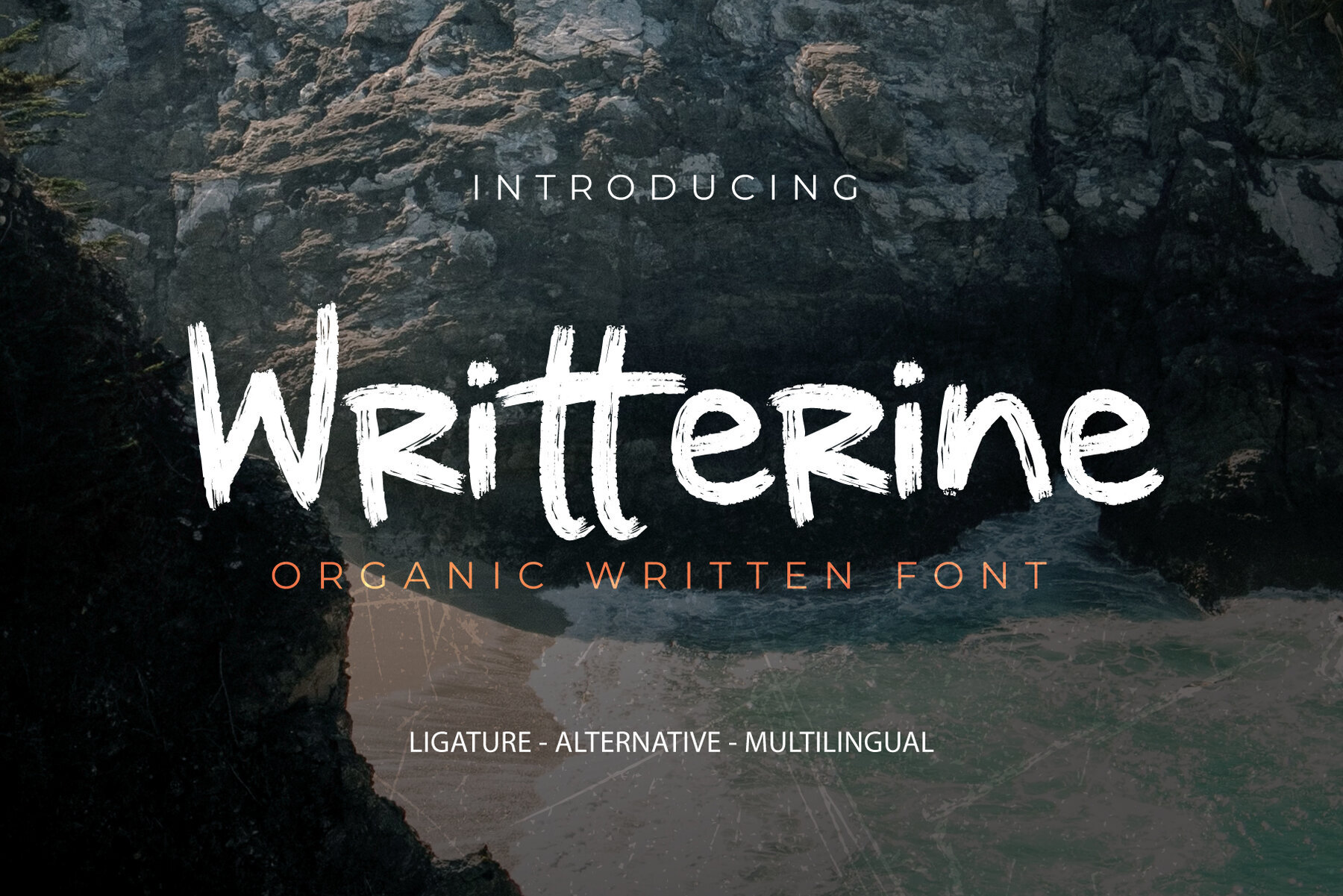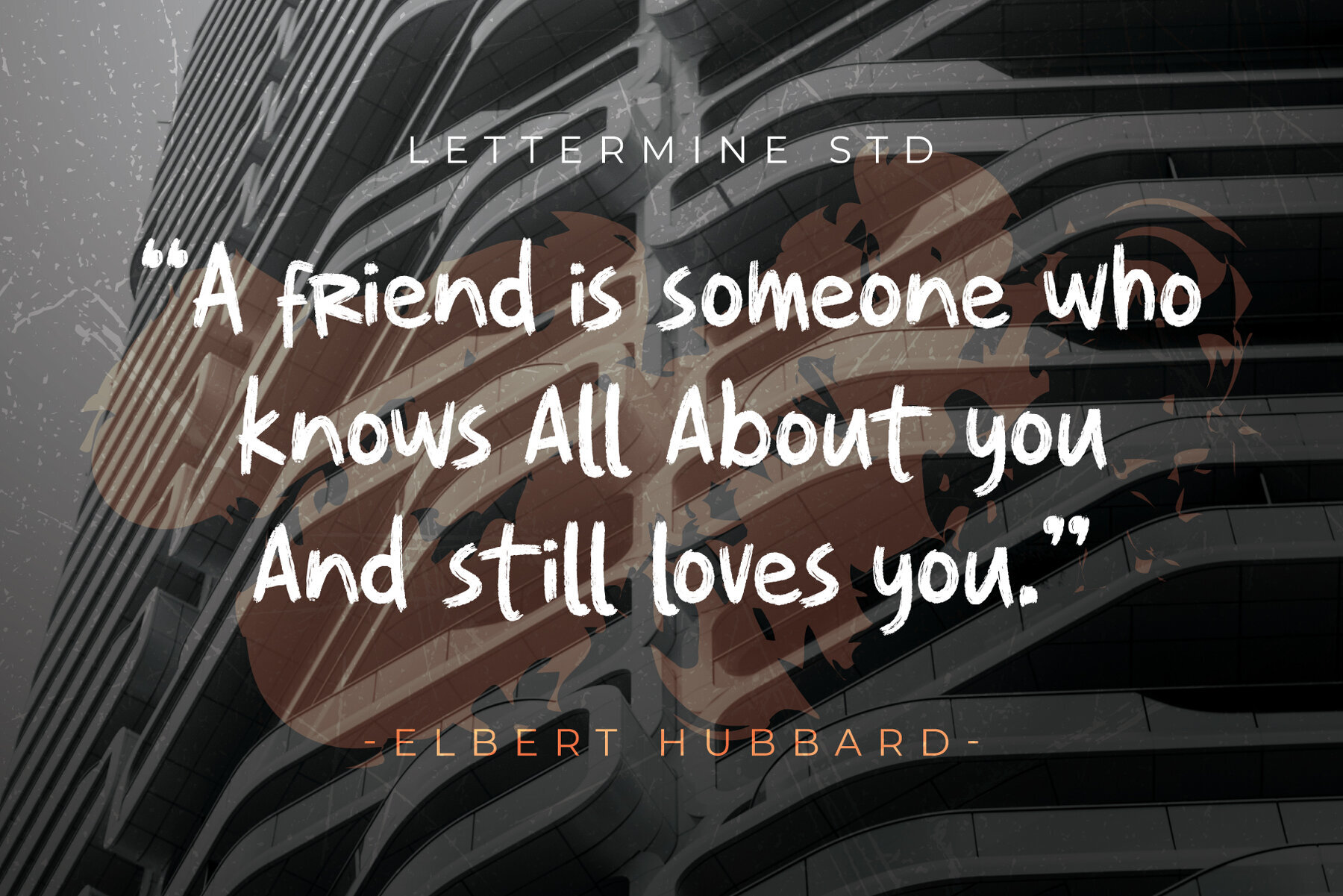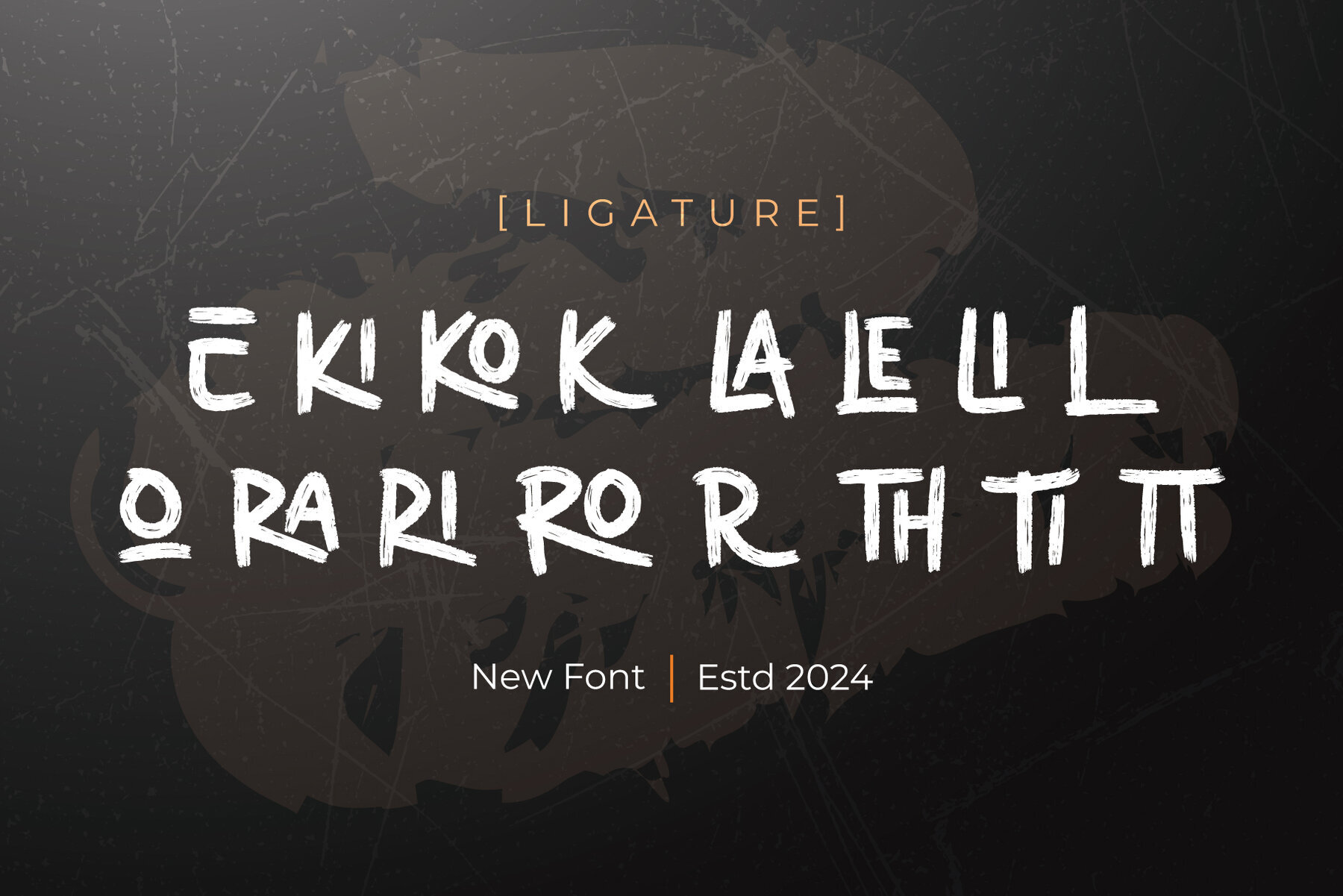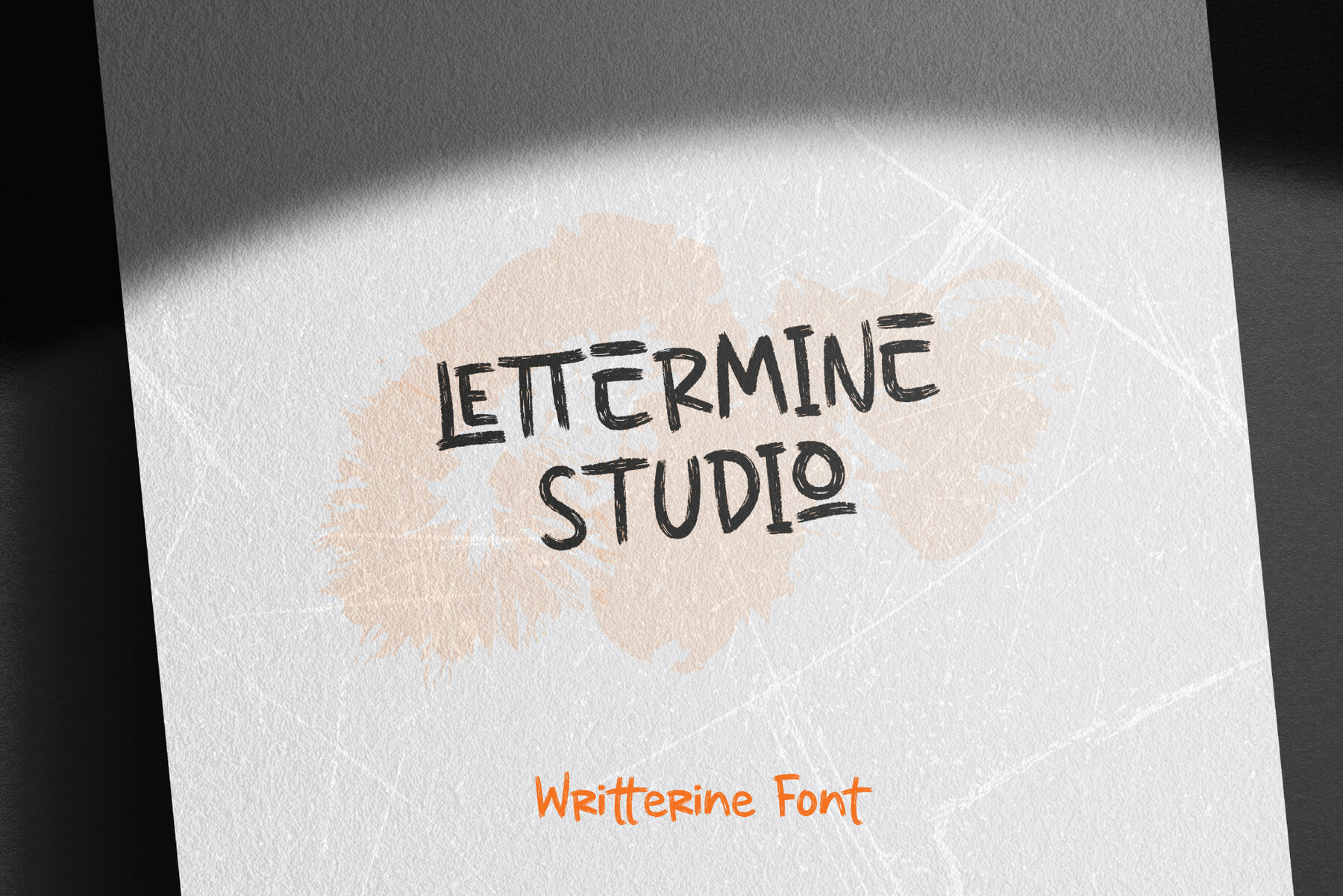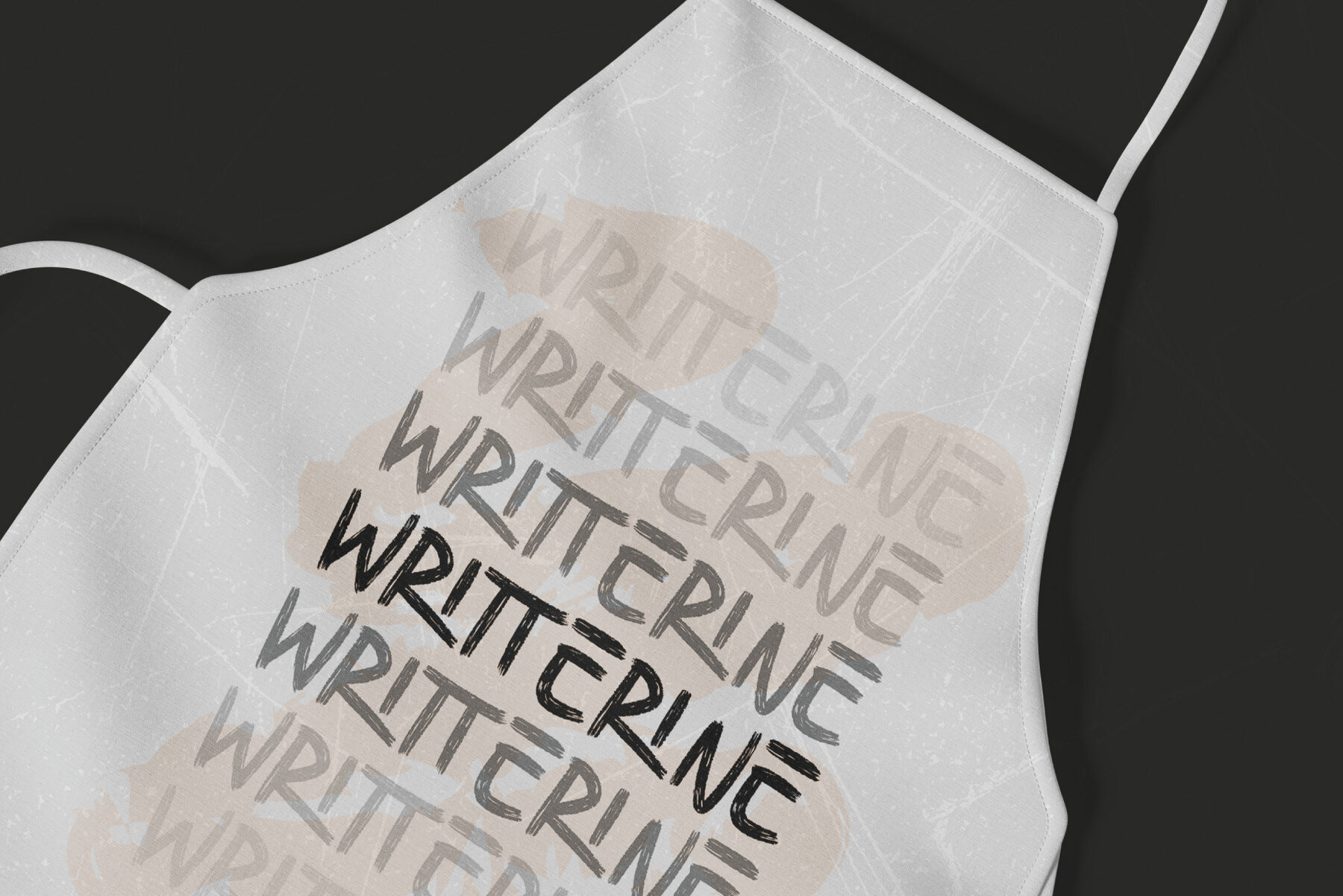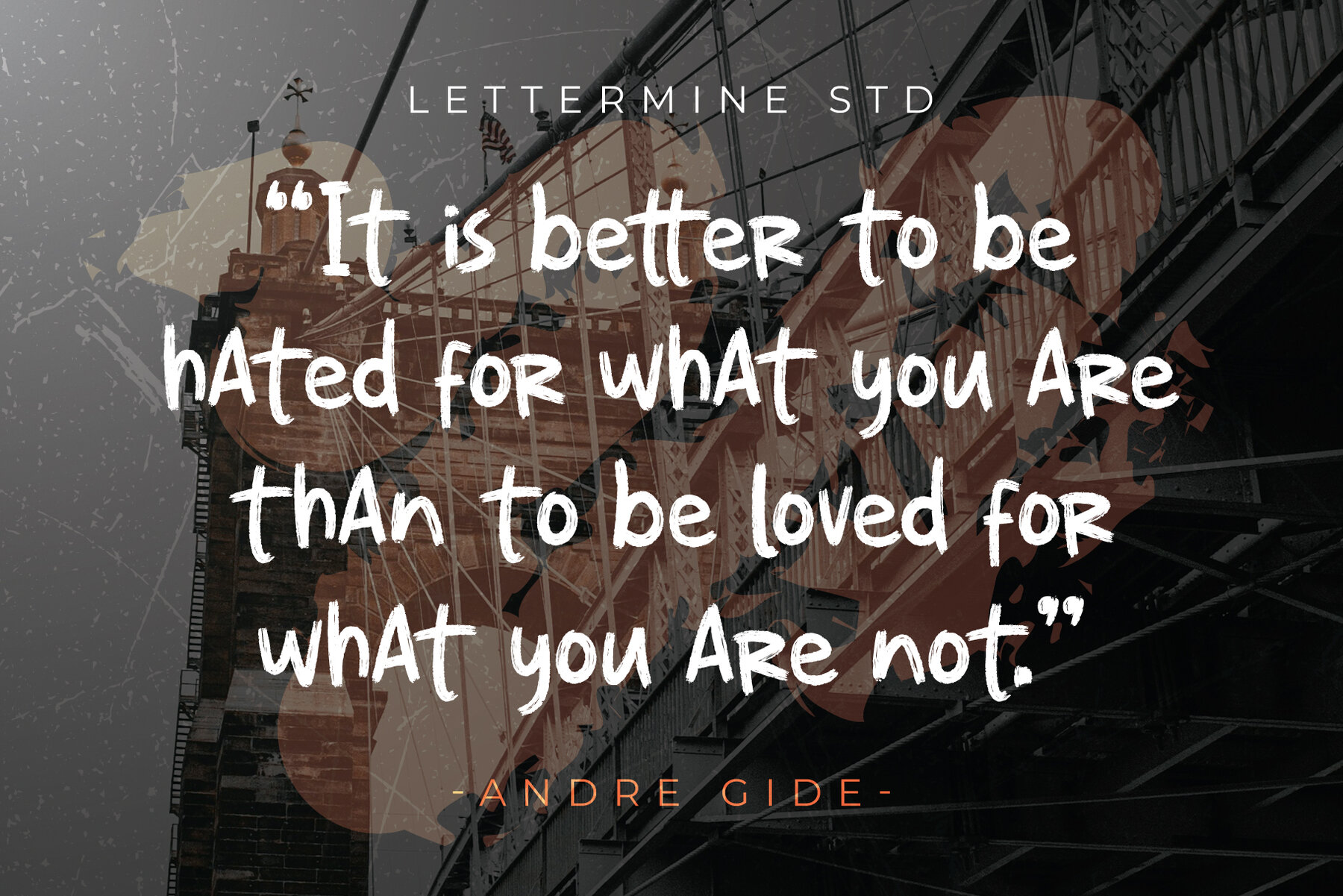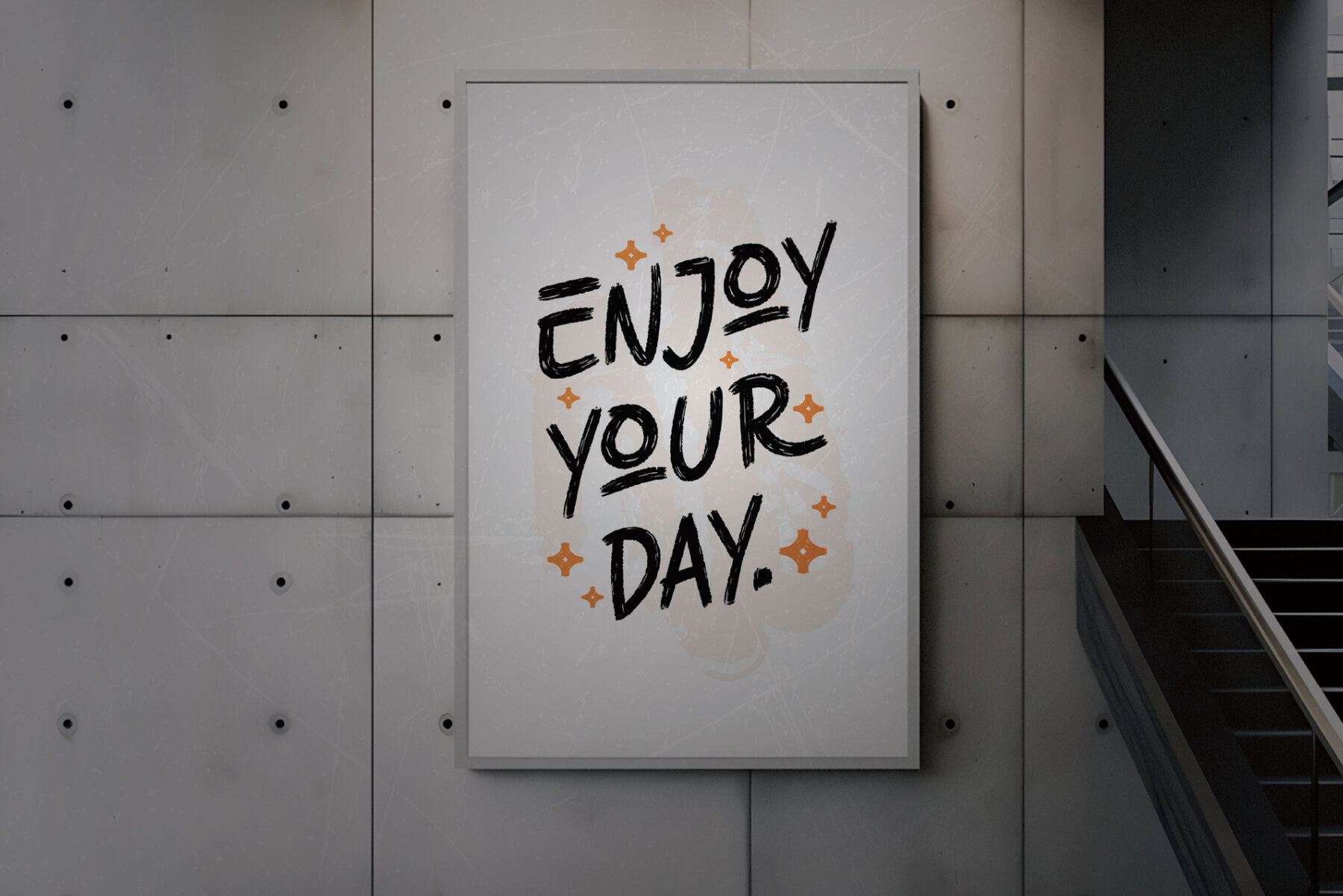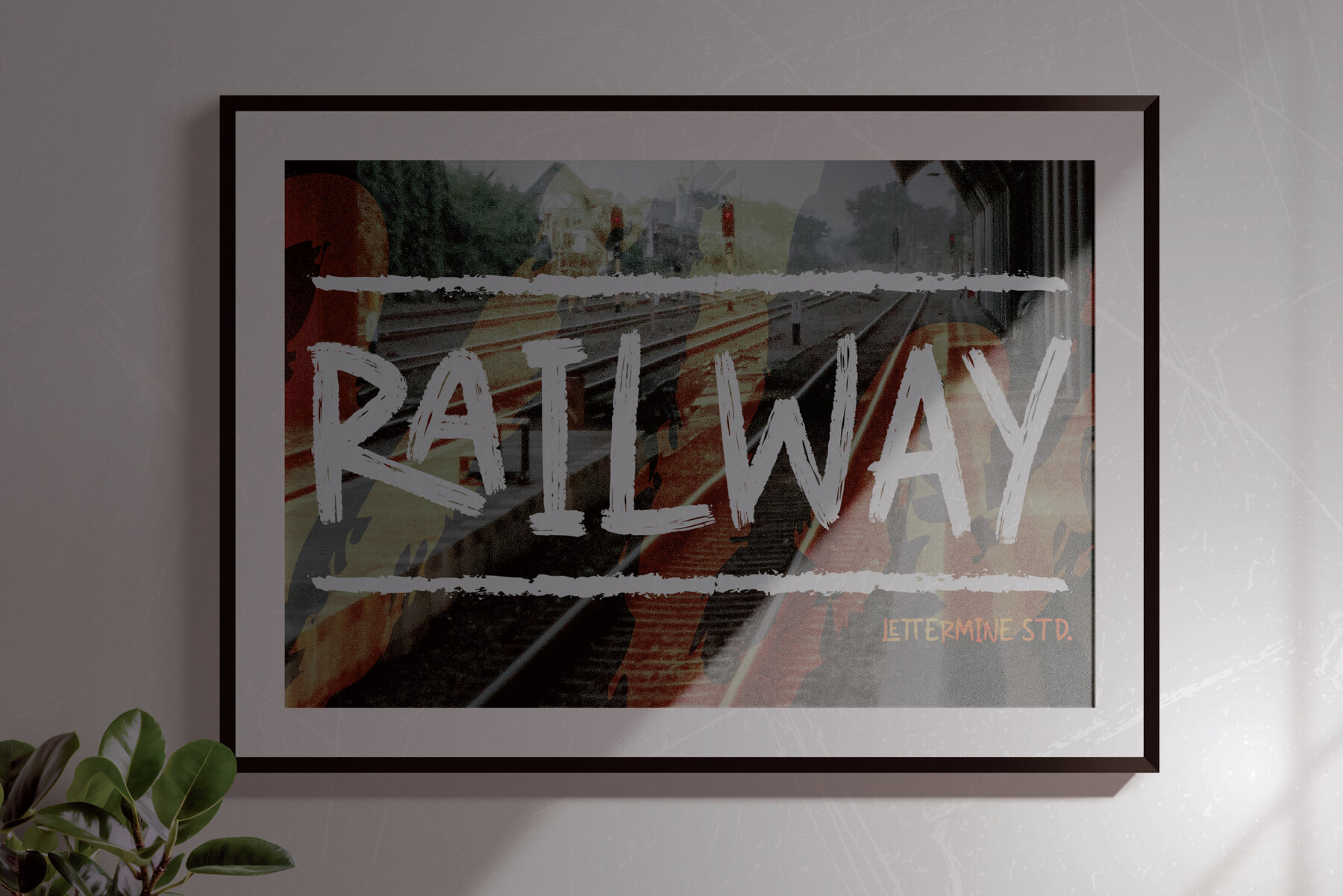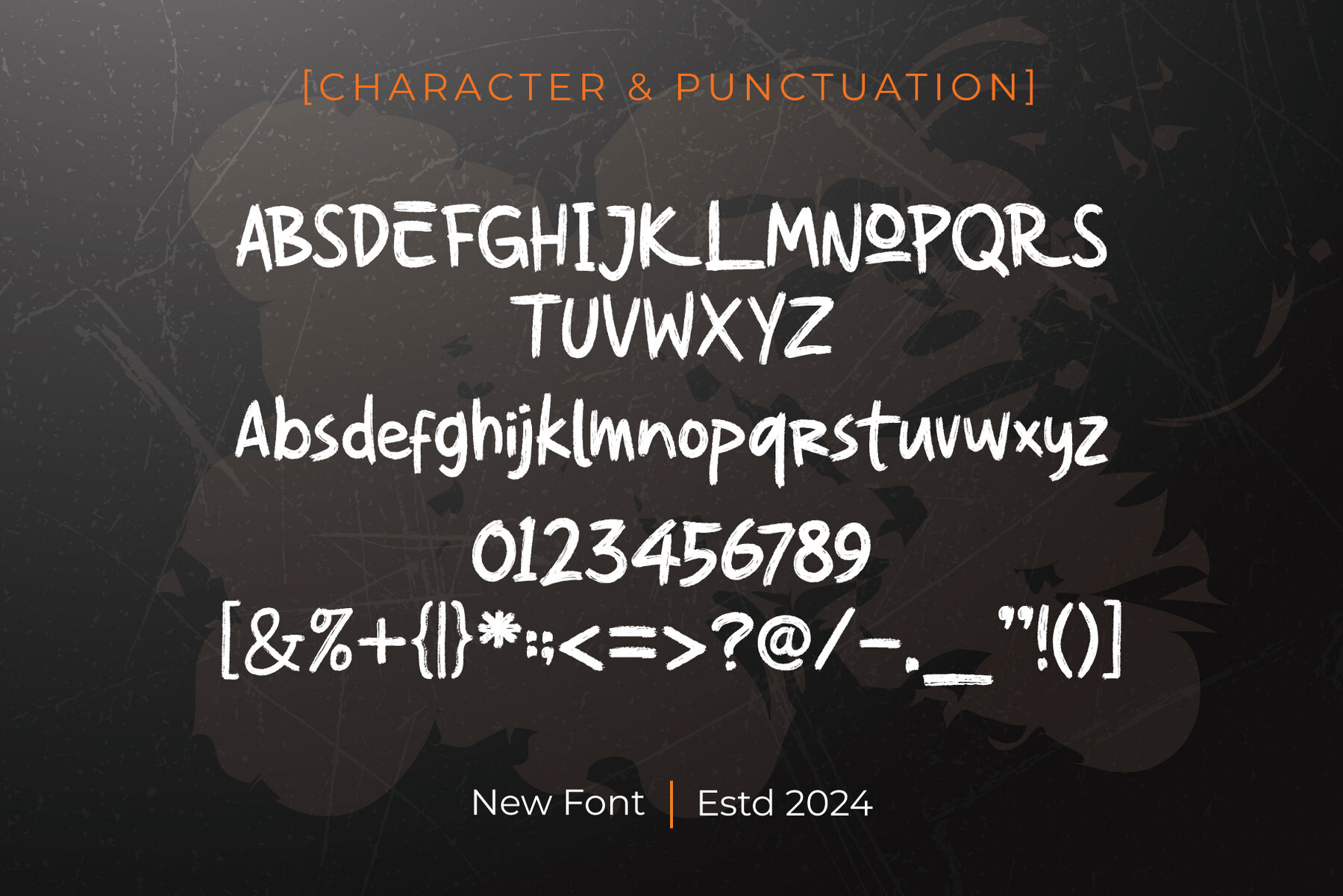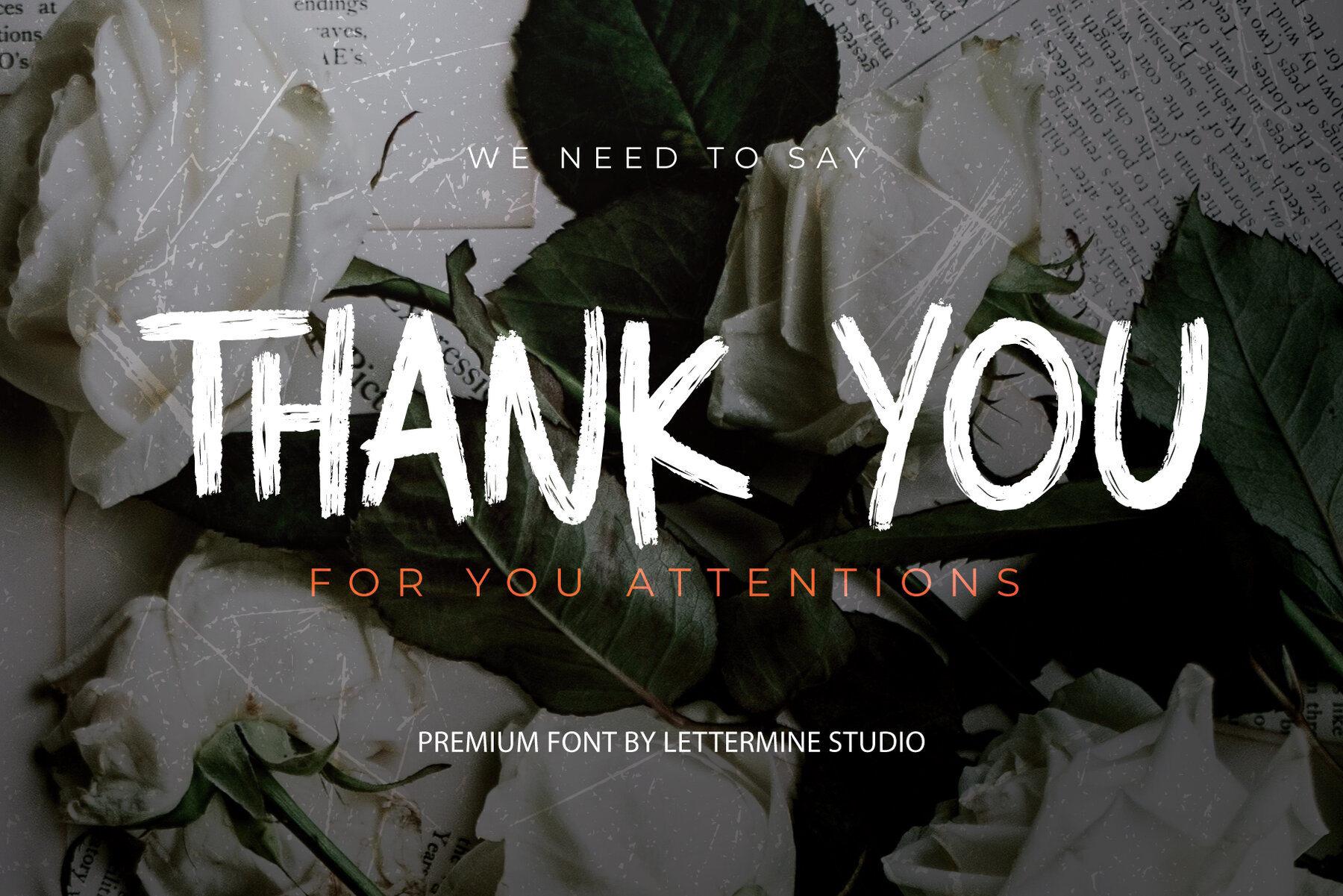
Writterine Font
Writterine Regular
This font exhibits a raw, energetic brush-stroke appearance that conveys movement and artistic expression. It is characterized by bold, imperfect forms and a distinct hand-drawn quality, making it well-suited for creative projects that require a personal, informal touch. Its grunge-inspired textures suggest a casual yet edgy vibe that could add character to design work aimed at a youthful, contemporary audience.